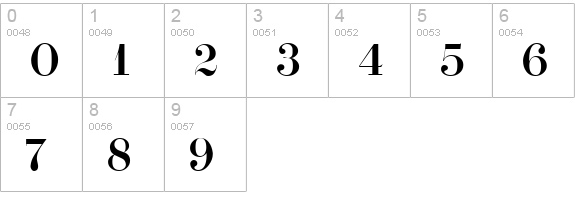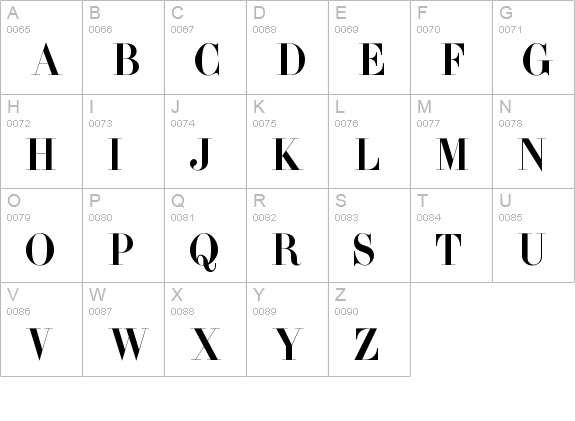
Didi Regular Font Details
Didi Regular is the standard, neutral variant in the Didi typeface family \xE2\x80\x94 well suited to general body text, paragraphs, and standard typographic work.
Didi Regular is a modern and stylish font that exudes elegance and sophistication. With its clean lines and rounded edges, this font is perfect for a variety of design projects, from branding to invitations. The sleek and minimalist design of Didi Regular makes it versatile and easy to read, making it suitable for both print and digital applications. What sets Didi Regular apart is that it is available for free download at FontsMarket.com. This means that you can easily access and use this beautiful font in your projects without any cost. Whether you're a designer looking to add a touch of class to your creations or a business owner wanting to elevate your brand, Didi Regular is the perfect choice. Download it today and start creating stunning designs with this free and elegant font.